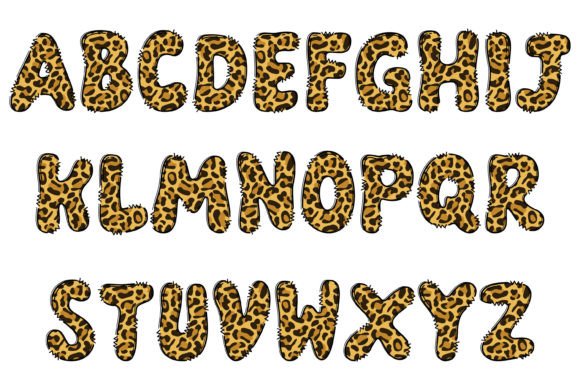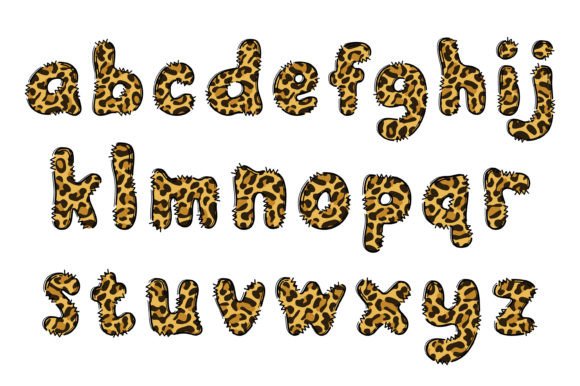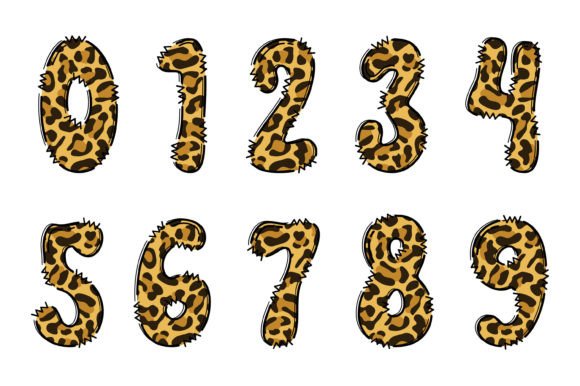
Cheetah Font: A Playful and Artistic Font for Creative Designs
The Cheetah Font is a unique and creative font that has gained popularity among designers and crafters alike. Its playful and artistic feel makes it an ideal choice for a variety of design projects, including children’s books, posters, invitations, greeting cards, and more. In this article, we’ll explore the features and benefits of the Cheetah Font, as well as its compatibility with various design programs and cutting machines.
A Font that Brings Playfulness and Creativity to Your Designs
The Cheetah Font is designed to convey a sense of playfulness and artistic flair, making it perfect for designs that require a creative and whimsical touch. Its bold and colorful appearance is sure to capture the attention of your audience, whether you’re designing a children’s book, a poster, or a greeting card. The font’s unique style is reminiscent of hand-drawn illustrations, adding a personal and human touch to your designs.
Use Cases for the Cheetah Font
The Cheetah Font is versatile and can be used in a variety of design projects, including:
- Children’s books: The font’s playful and colorful appearance makes it an excellent choice for children’s books, creating an engaging reading experience for young audiences.
- Posters: The Cheetah Font is perfect for creating eye-catching posters that require a bold and attention-grabbing headline.
- Invitations: Add a touch of whimsy and creativity to your invitations with the Cheetah Font, making them stand out from the crowd.
- Greeting cards: The font’s playful and artistic feel makes it an excellent choice for greeting cards, adding a personal touch to your messages.
Tips for Using the Cheetah Font
Here are some tips for using the Cheetah Font in your designs:
- Experiment with different colors: The Cheetah Font comes in a range of colors, so don’t be afraid to experiment and find the perfect color scheme for your design.
- Mix and match with other fonts: The Cheetah Font pairs well with other fonts, so try mixing and matching it with other fonts to create a unique and creative look.
- Use it for headlines and titles: The Cheetah Font is perfect for headlines and titles, adding a bold and attention-grabbing touch to your designs.
The Cheetah Font is a unique and creative font that is perfect for designers and crafters who want to add a playful and artistic touch to their designs. Its compatibility with various design programs and cutting machines makes it a versatile font that can be used in a range of projects. With its bold and colorful appearance, the Cheetah Font is sure to capture the attention of your audience and make your designs stand out from the crowd.